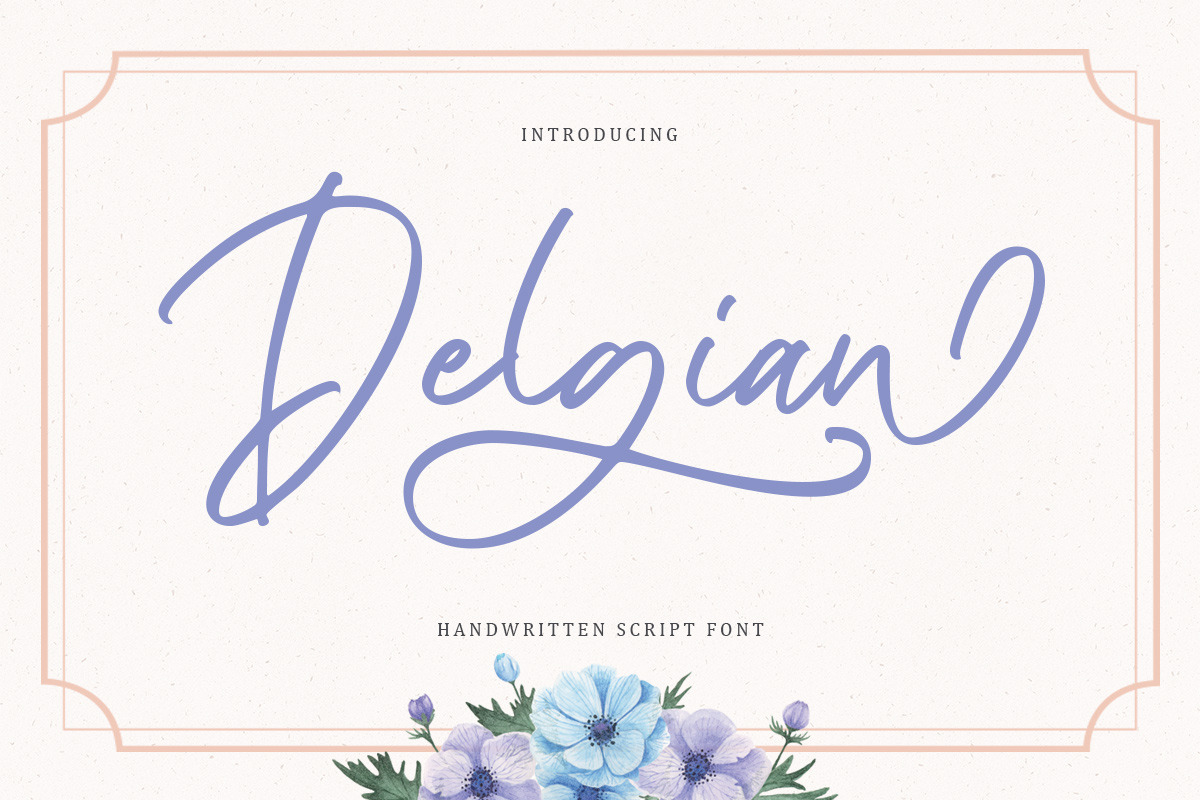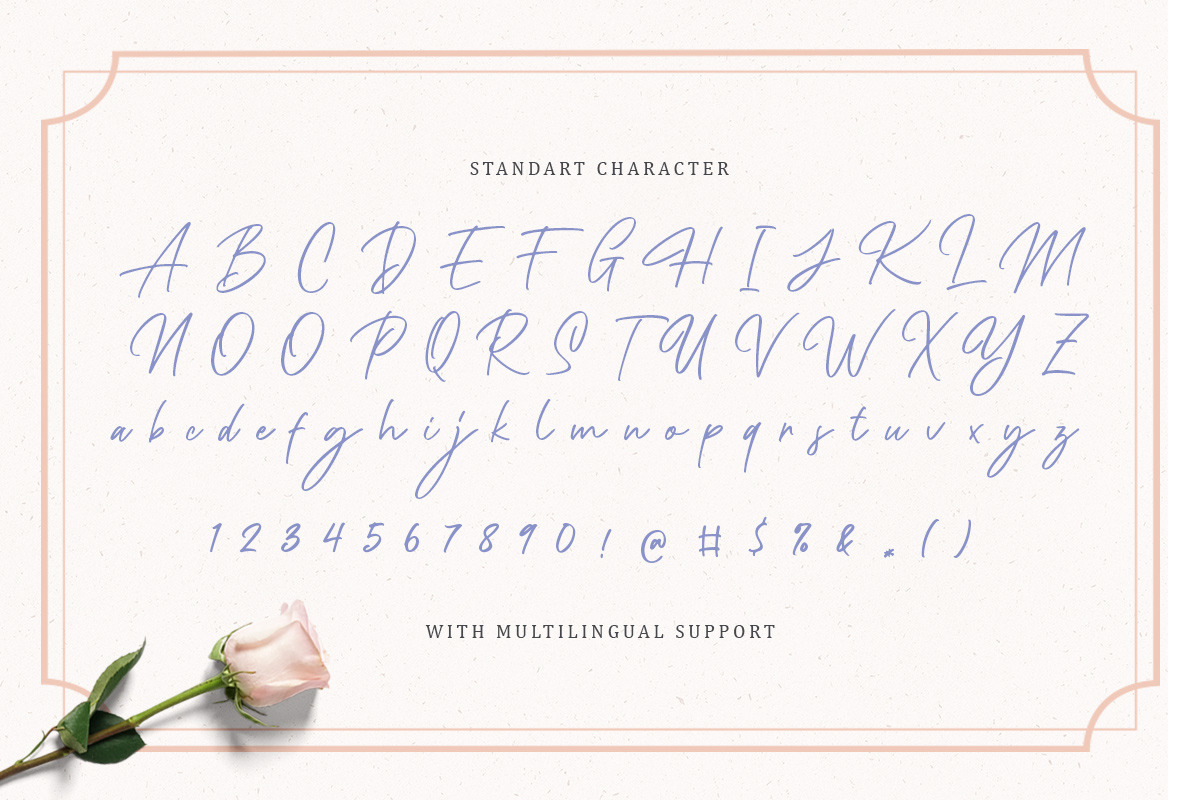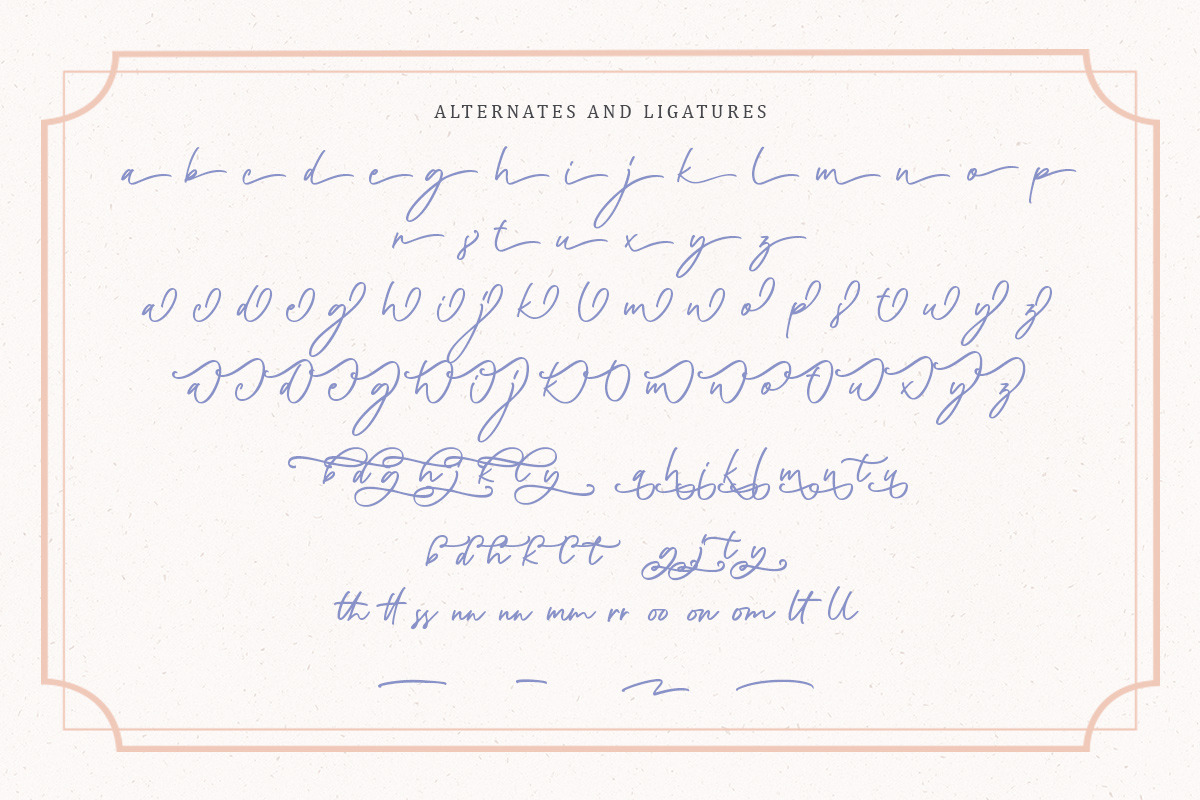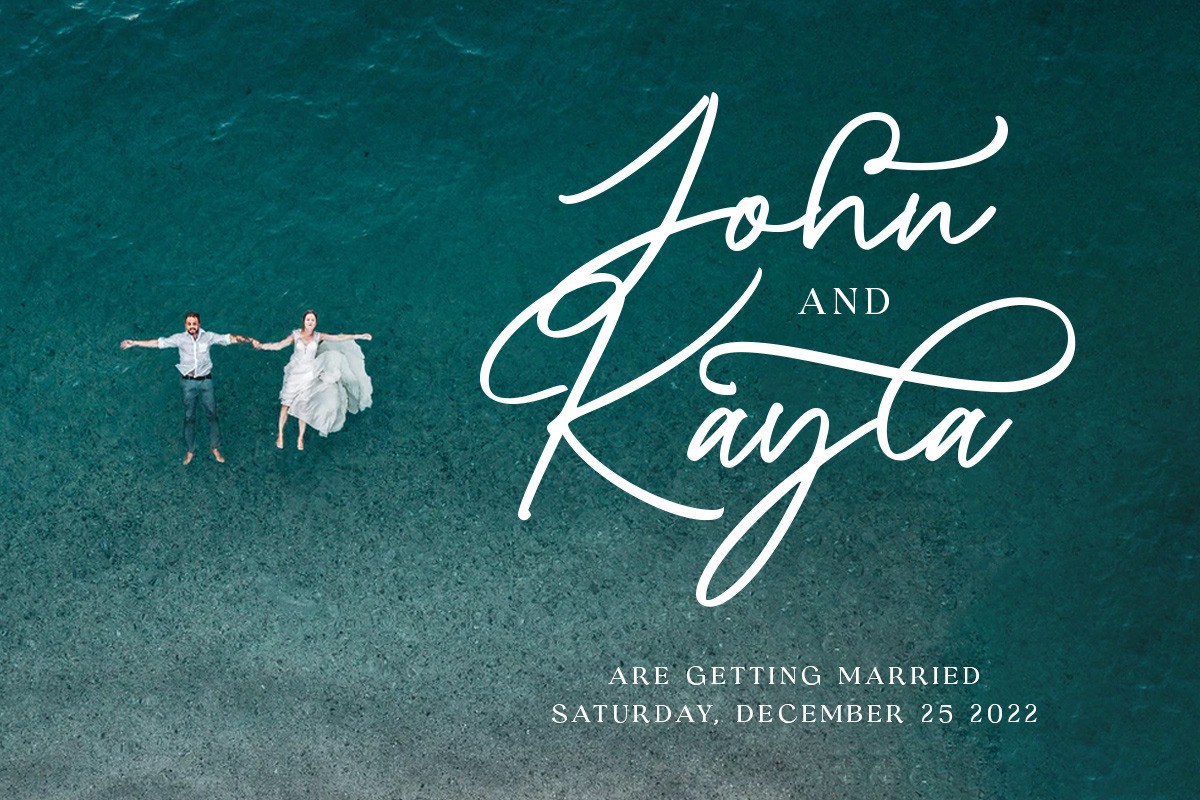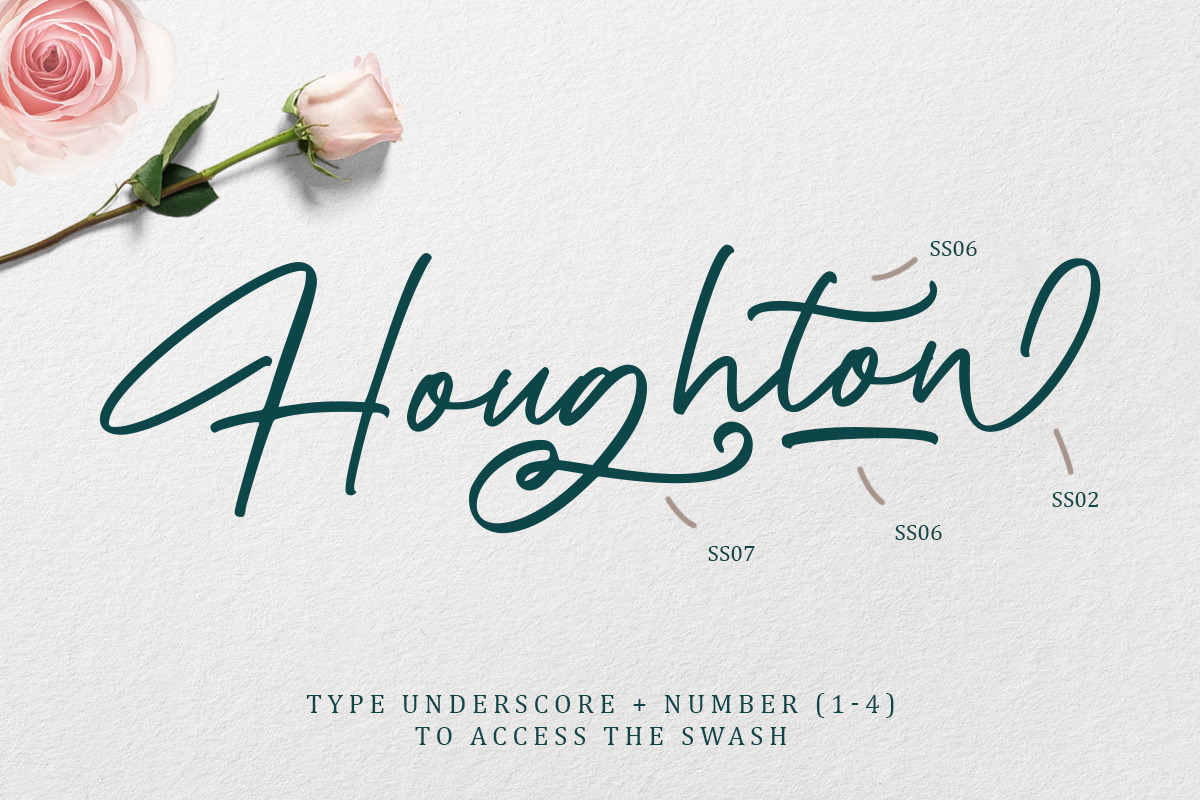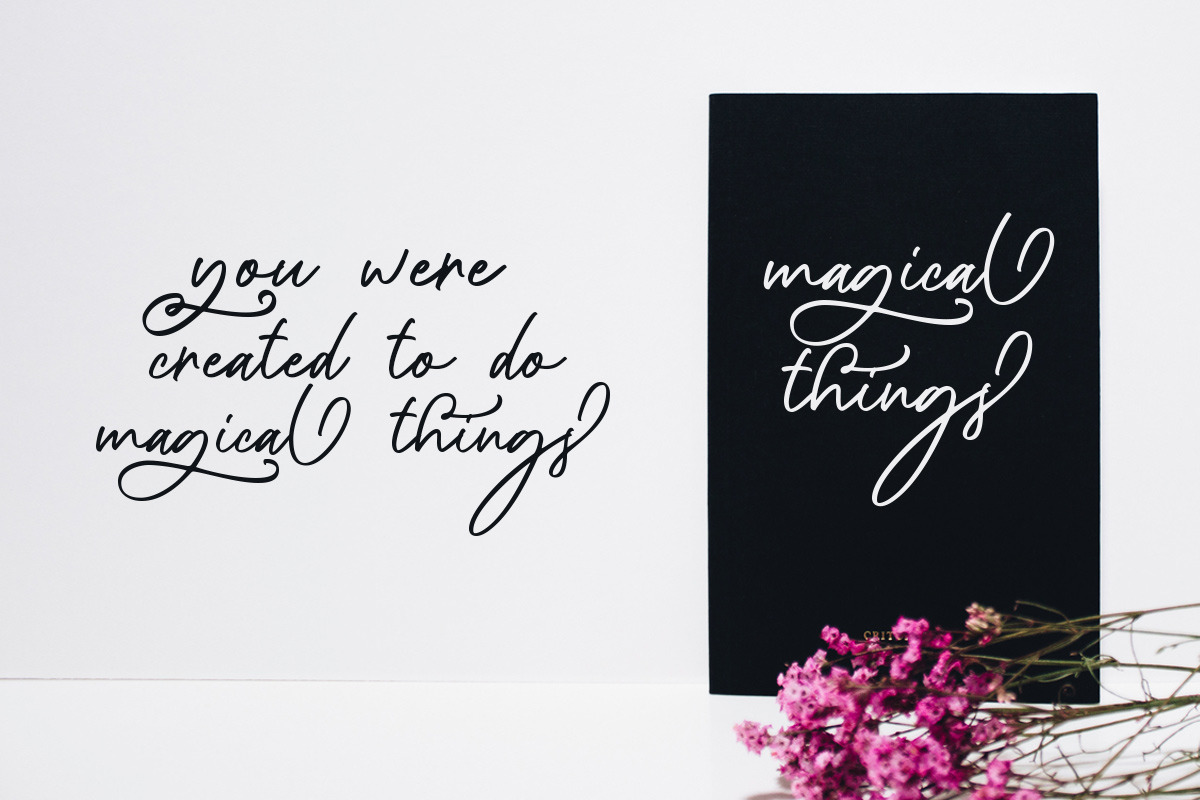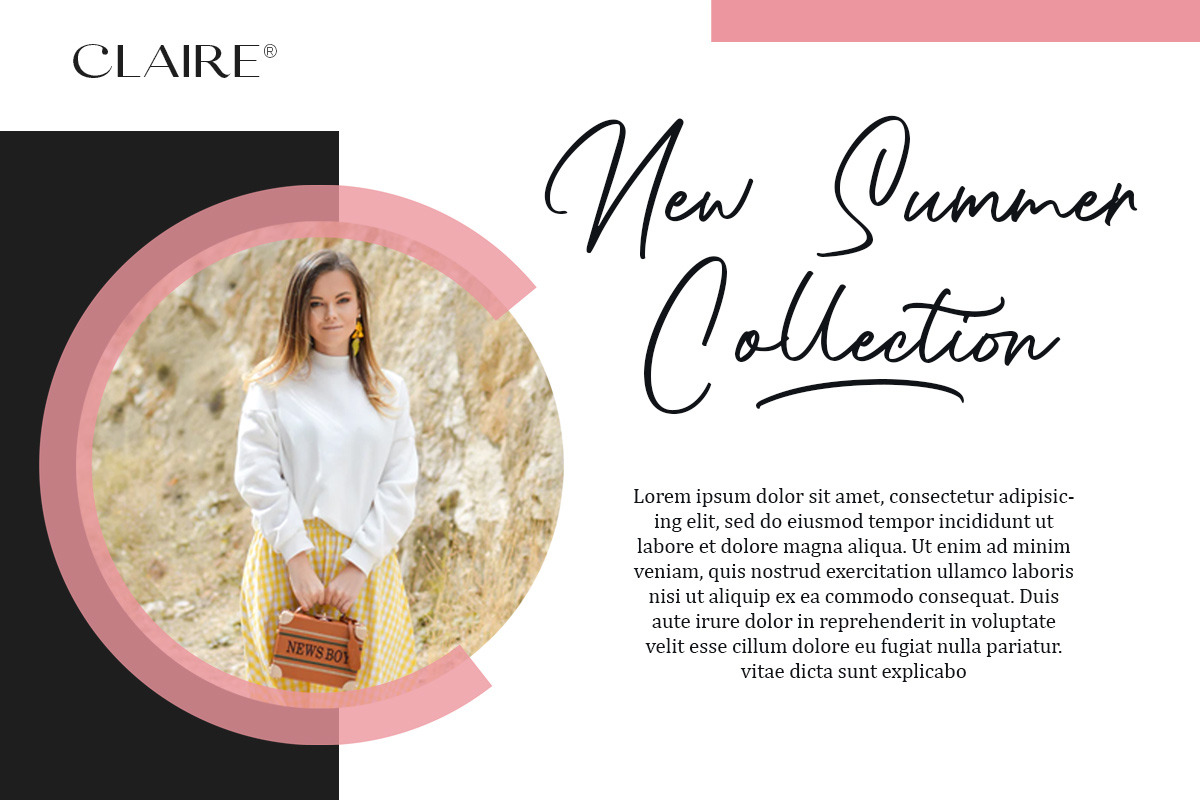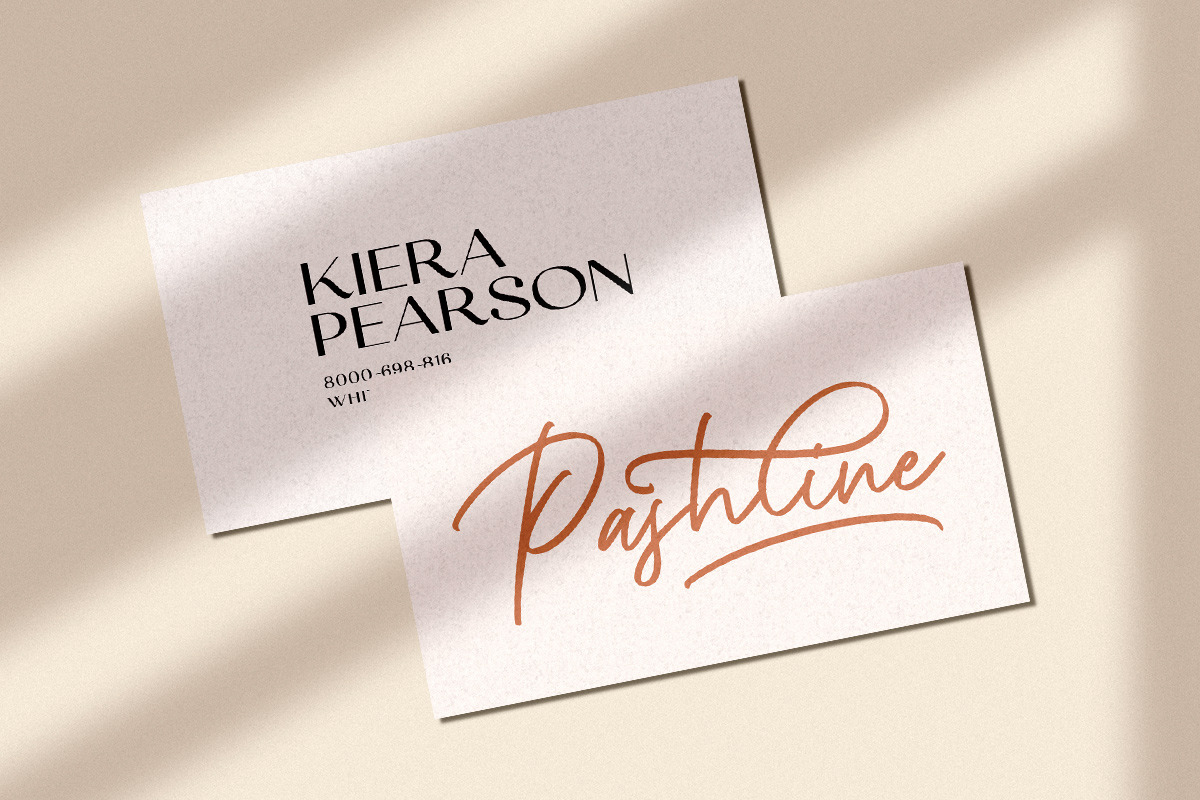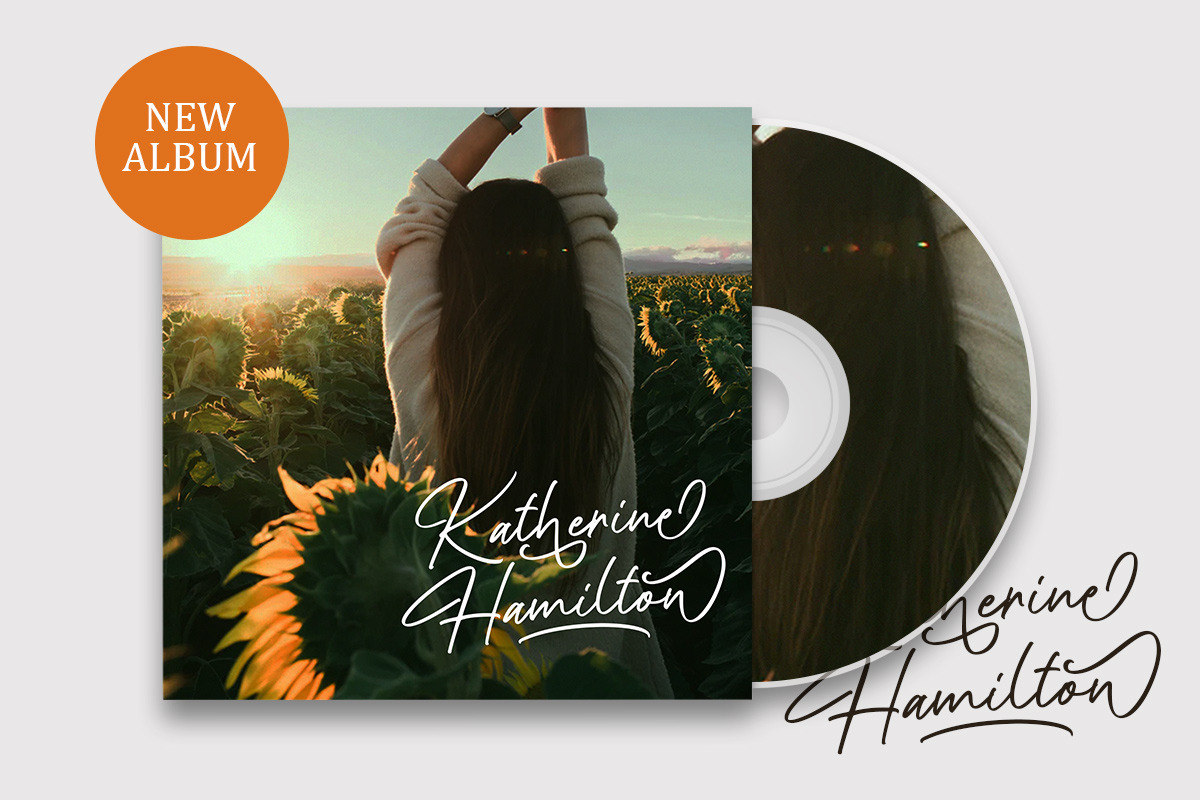
Delgian - Handwritten Script Font
Introducing, Delgian, A Feminime Handwritten Script. This typeface light-simple and touch with natural handwritten calligraphy. You will also get many alternate and ligature to explore many touch in your design.
This font perfectly made to be applied especially in logo, and the other various formal forms such as invitations, labels, logos, magazines, books, greeting / wedding cards, packaging, fashion, make up, stationery, novels, labels or any type of advertising purpose.
- alternates